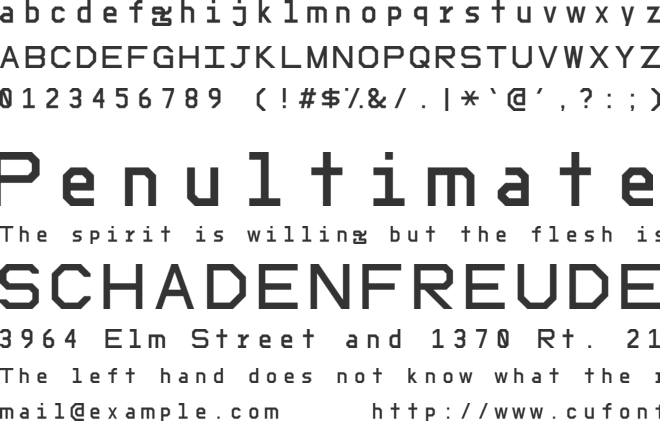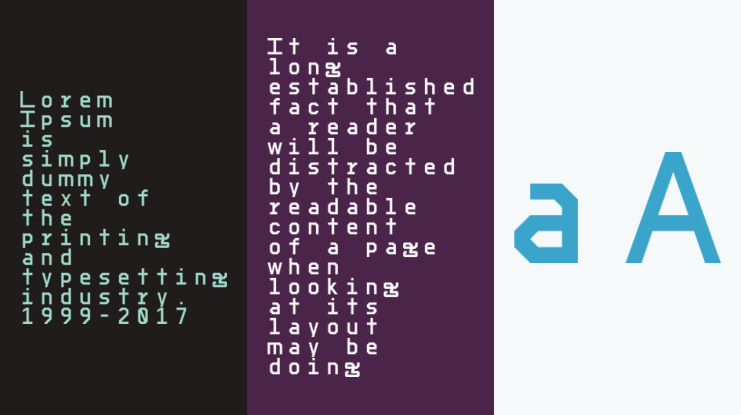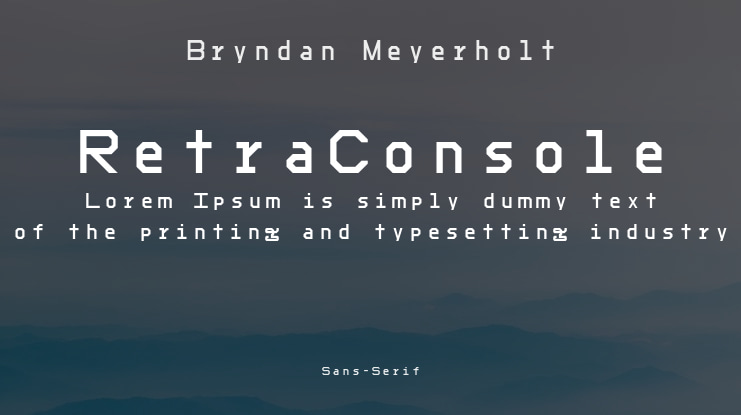
RetraConsole Font
Bryndan Meyerholt
This is a Monospaced font that exudes the feeling of 80's home computers. This font also includes Symbols for Legacy Computing, 7-segment displays, and arbitrary fraction characters.